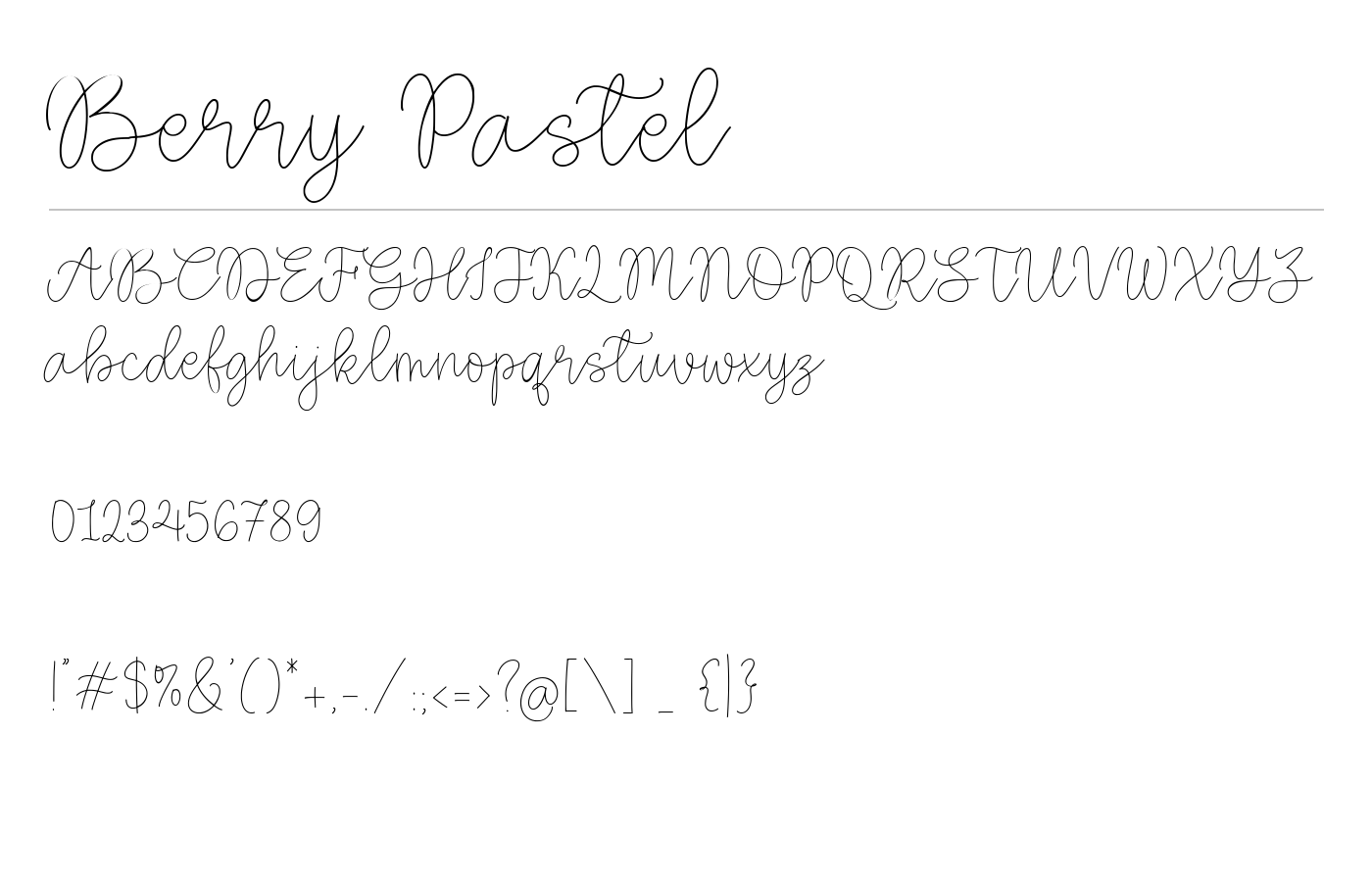
Berry Pastel is a delicate, lightweight script font with elegant, flowing lines that create a soft and whimsical feel. Its thin strokes and charming letterforms make it perfect for feminine branding, wedding invitations, and creative projects that require a touch of graceful sophistication. This font works beautifully in headlines or decorative text where a gentle, artistic look is desired.
Berry Pastel Font